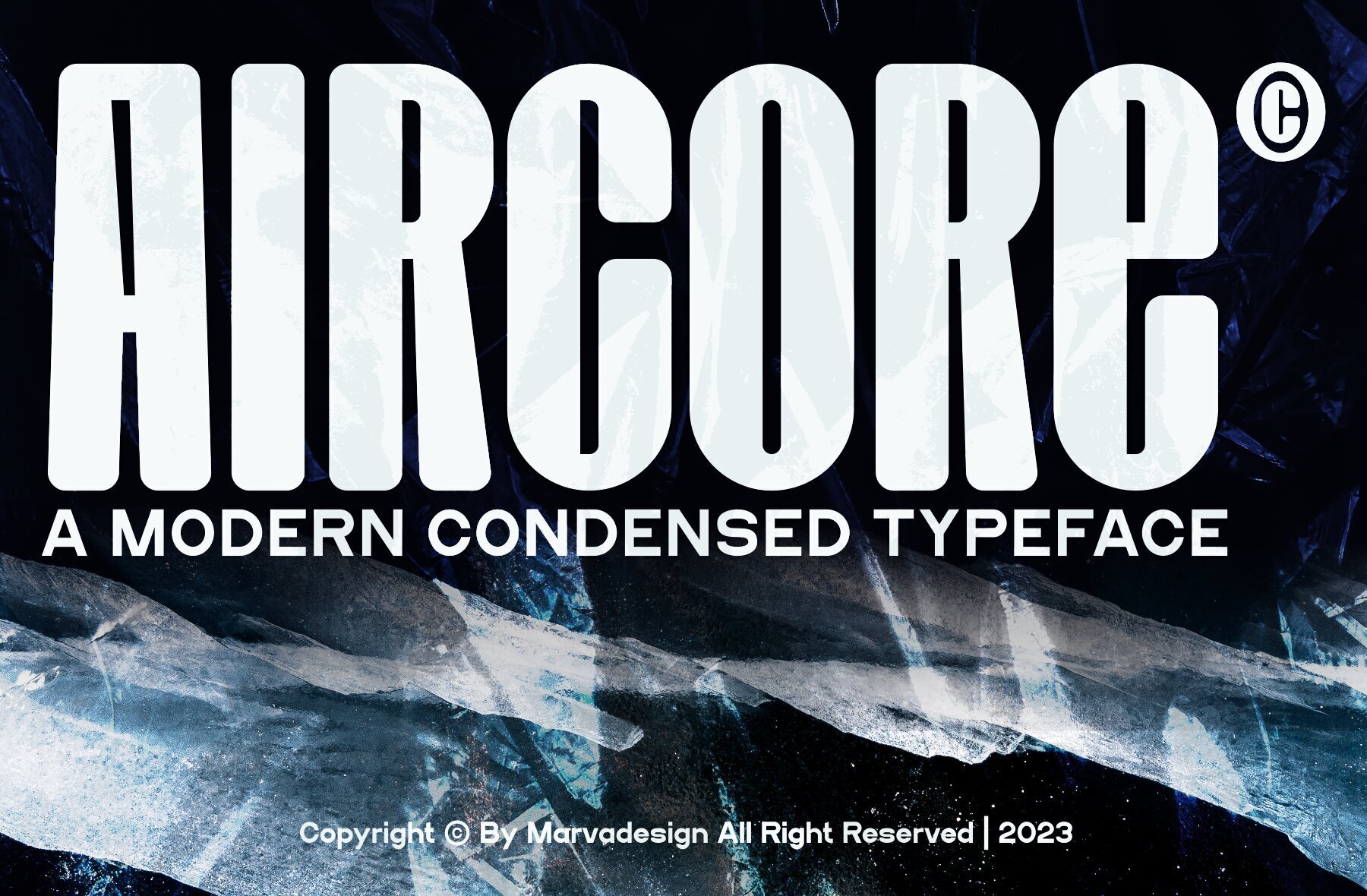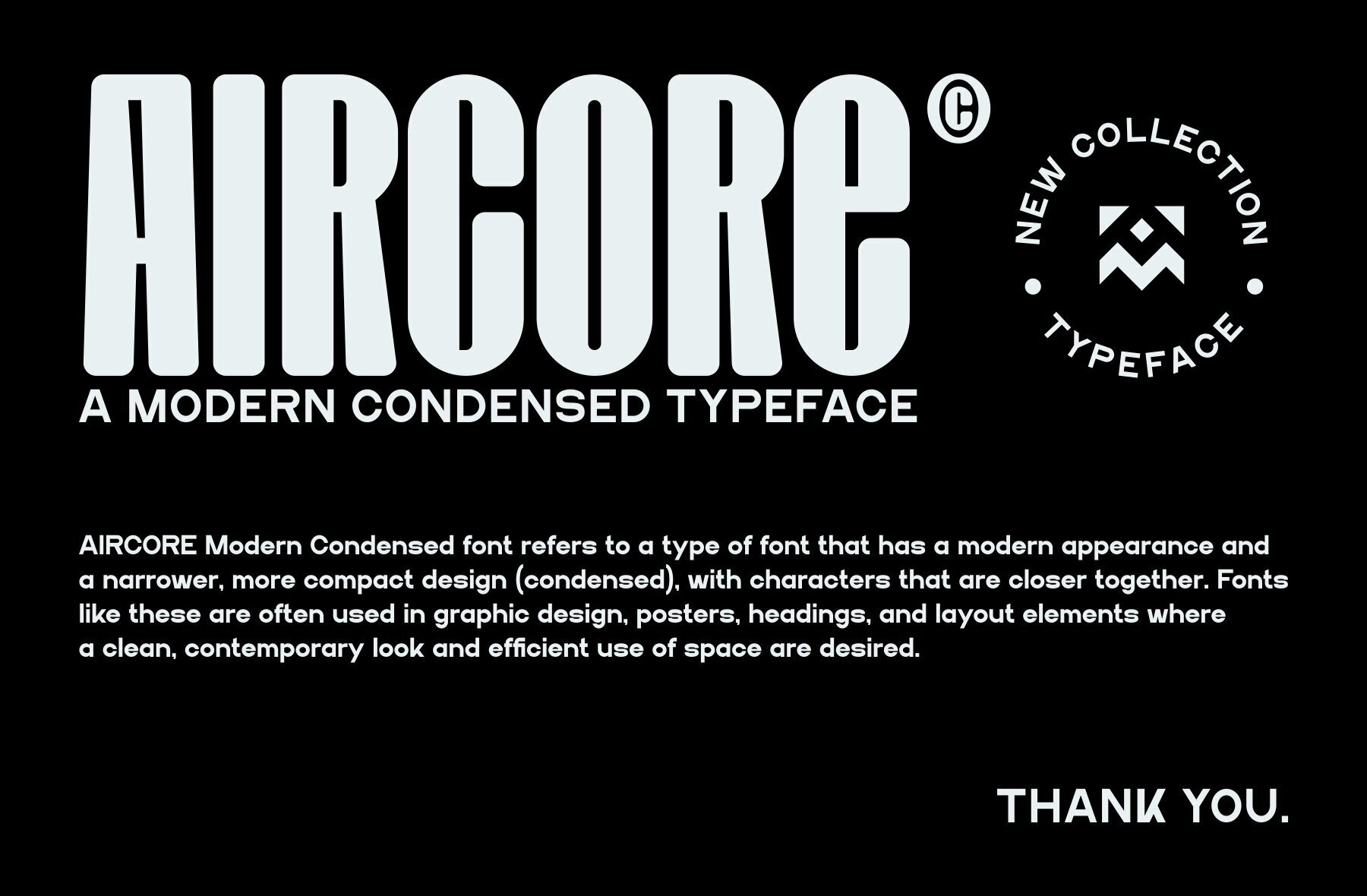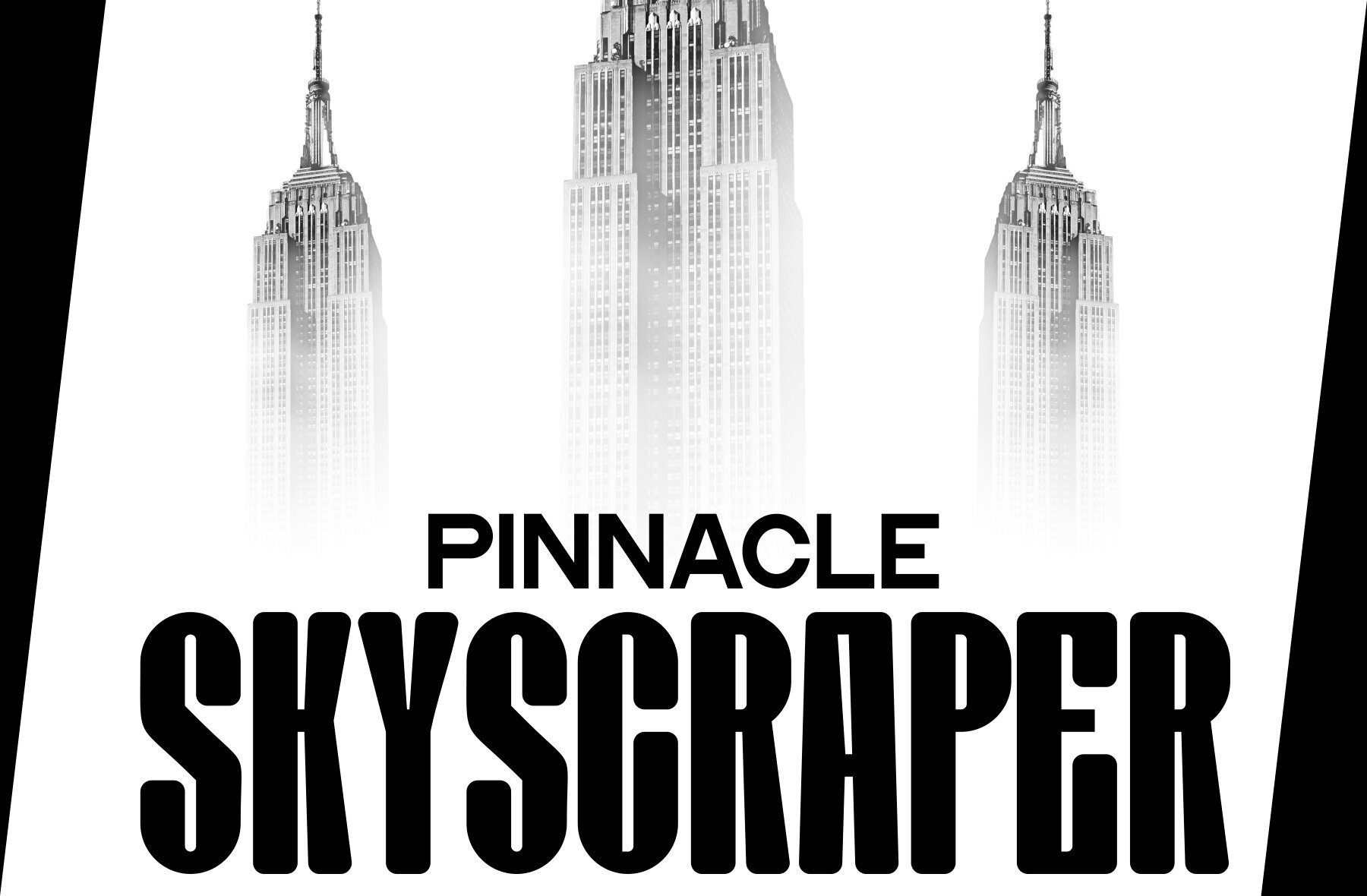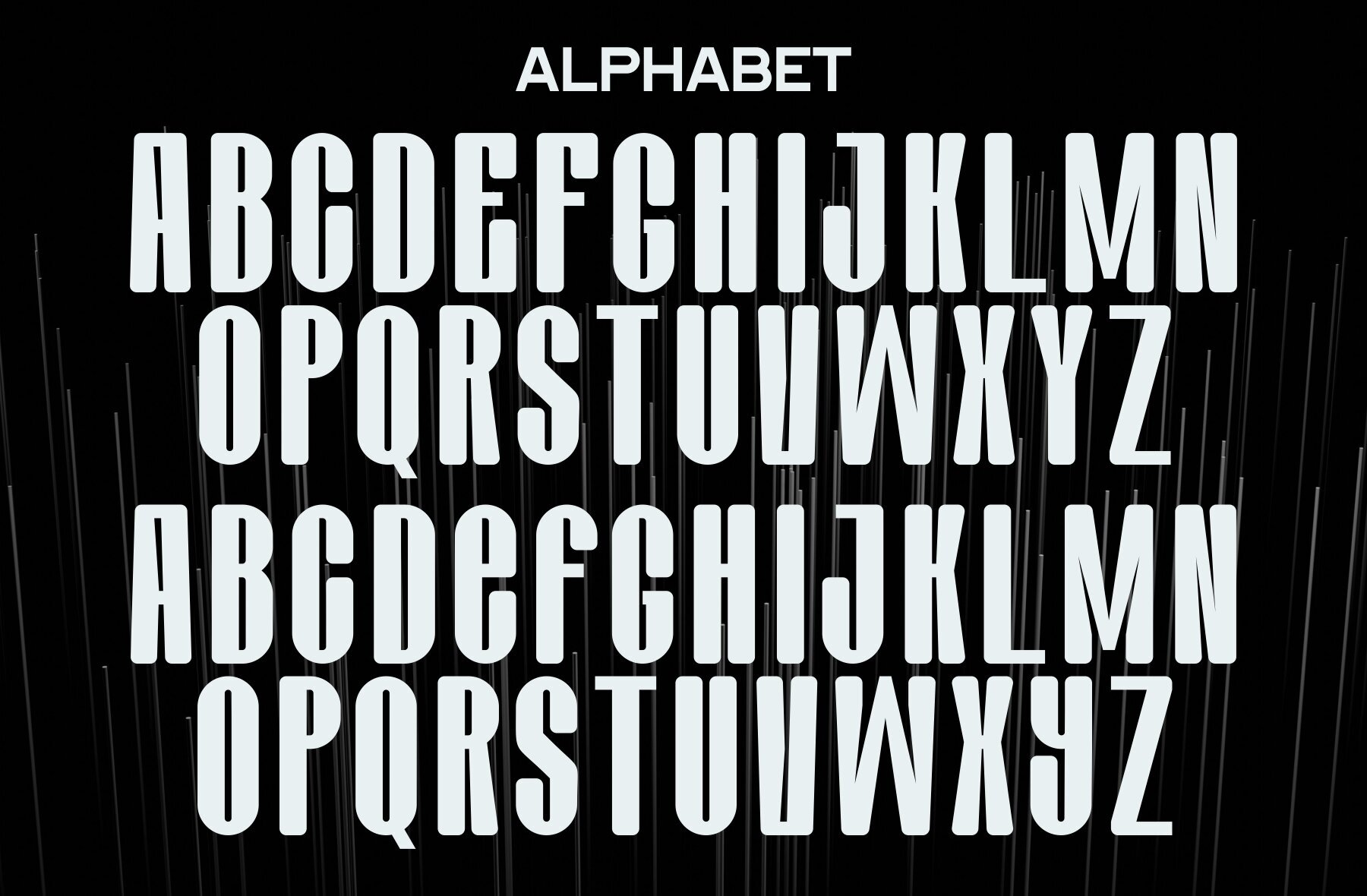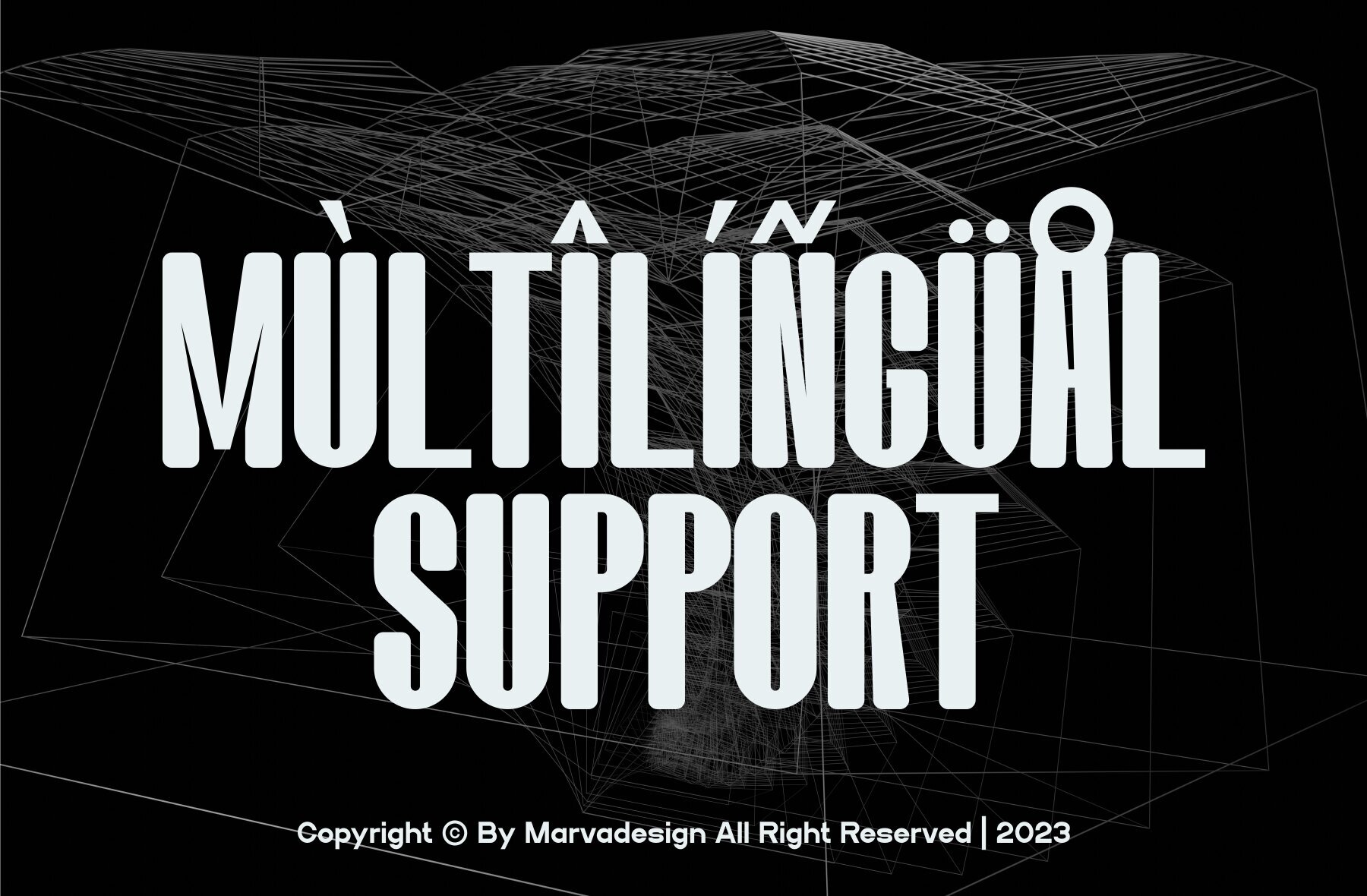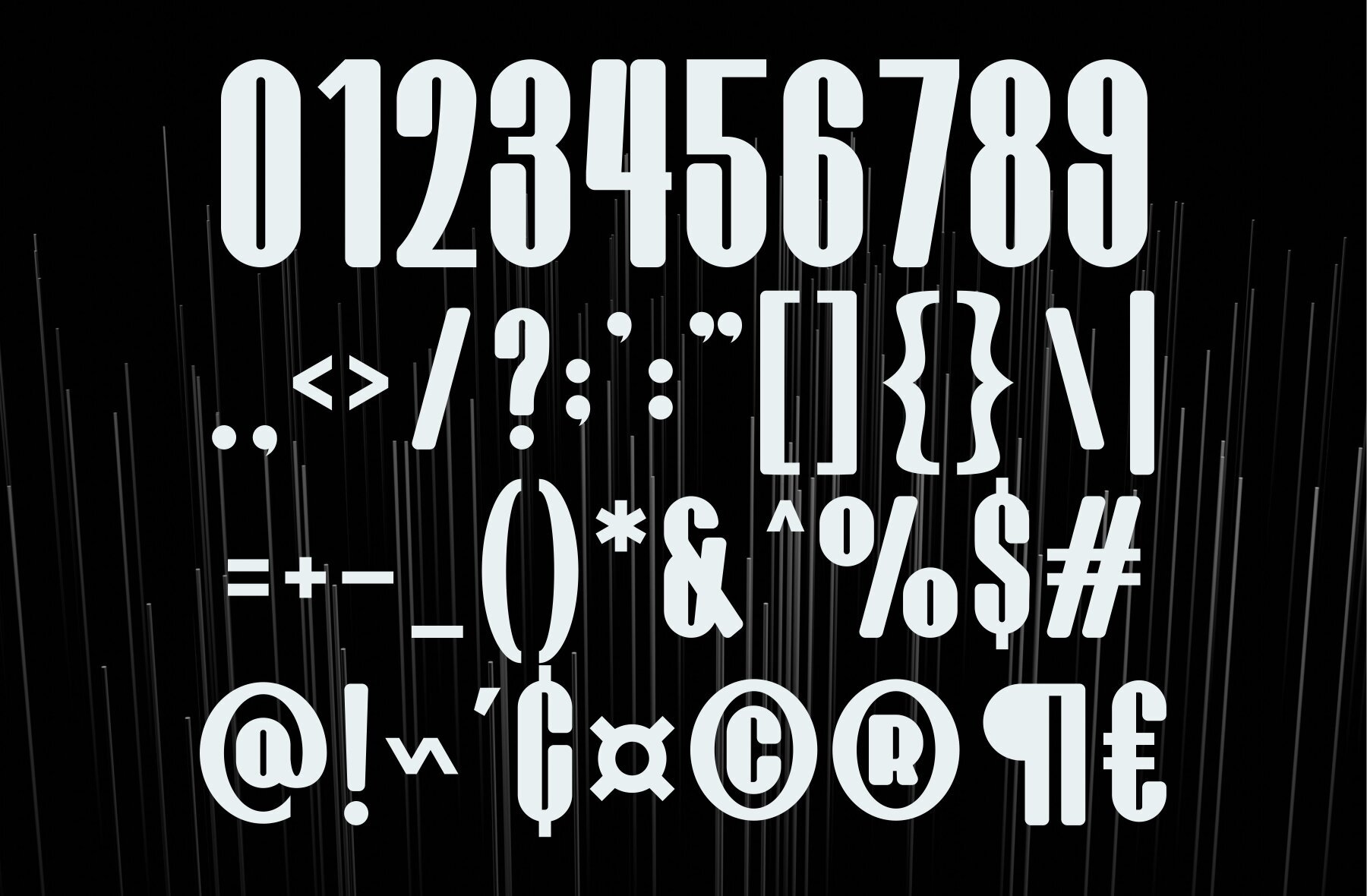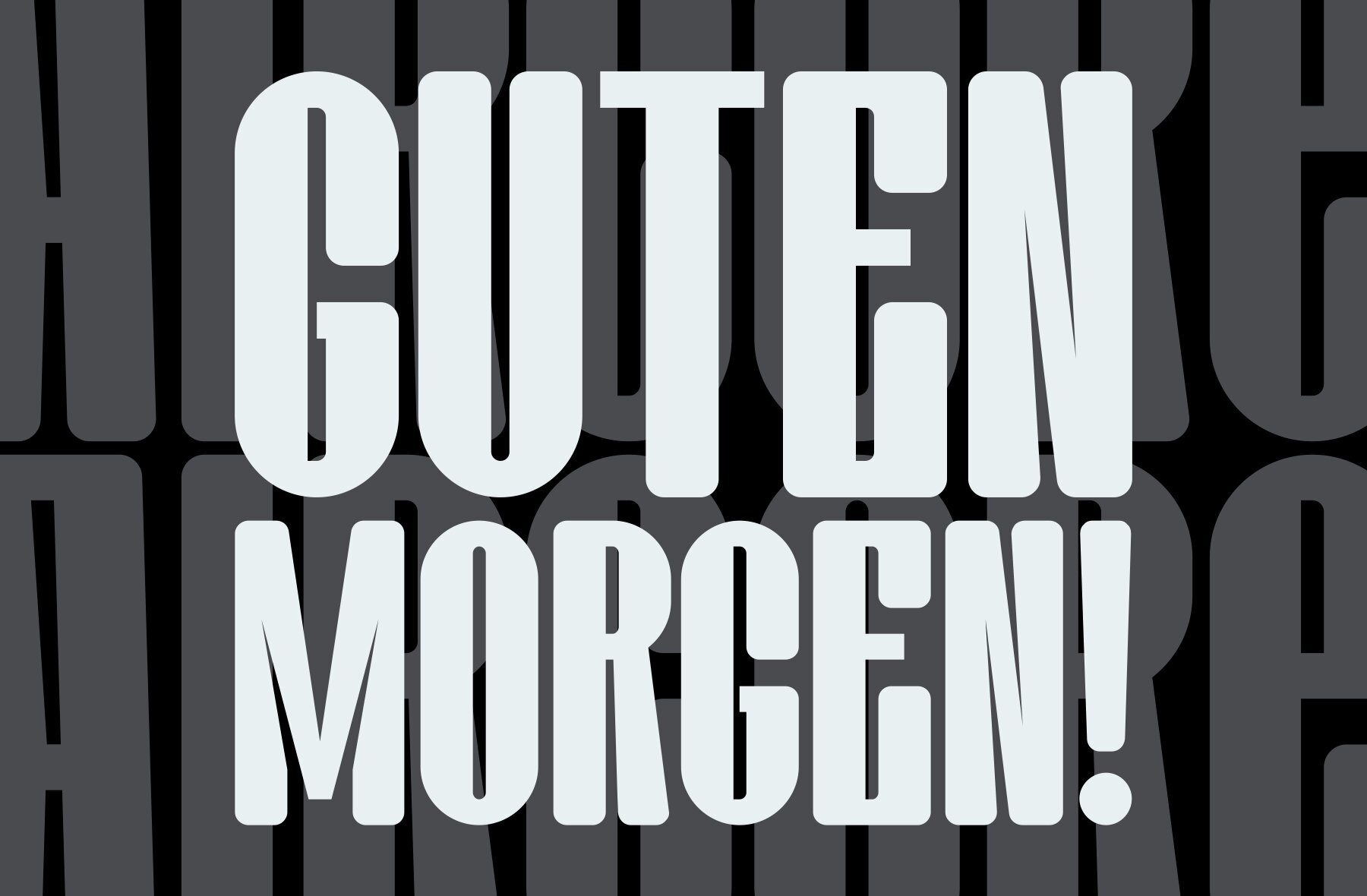
Aircore Font
Aircore Regular
The Aircore font by Marvadesign offers a modern, bold, and authentic style suitable for all types of branding projects. Whether you're working on a logo, template design, or product packaging, Aircore stands out in various contexts with its distinct design.Aircore: A Bold Display Font for Versatile Branding